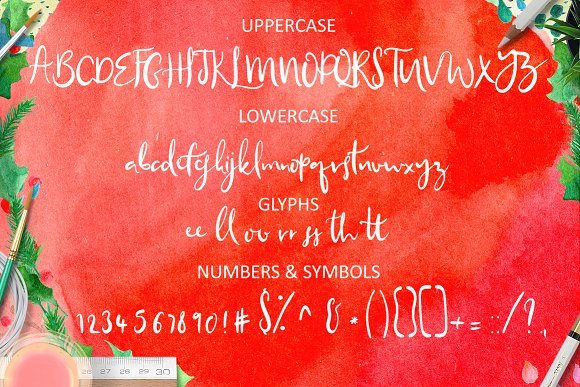
The Perfect Match for Your Creative Vision
Have you ever stared at a blank canvas, feeling the weight of an idea yet to be born? You’ve got a vision, but the right tools to bring it to life seem elusive. That’s where the Ballon Romance Font comes in – a sweet and friendly font that can breathe life into your designs. Its natural and unique style makes it incredibly fitting to a large pool of designs, limited only by your imagination.
As a designer, you understand the importance of finding the perfect font to convey your message. The Ballon Romance Font is more than just a typography choice – it’s a key to unlocking the emotional connection between your audience and your work. With its versatility and charm, this font is sure to become a valuable addition to your design arsenal.
Ballon Romance Font Key Features
- Unique Characteristics: Features elegant, cursive script with swashes and flourishes, making it ideal for romantic and wedding invitations, greeting cards, and other special occasions.
- Kerning and Ligatures: Includes advanced kerning and ligature pairs for improved readability and aesthetic appeal.
Designer Review: Ballon Romance Font
Overall, I’m impressed with the whimsical and dreamy vibe of the Ballon Romance Font. ✨ It’s perfect for adding a touch of romance and elegance to your design projects. The font’s unique combination of curves and flourishes creates a sense of softness and playfulness that’s hard to resist.
The Ballon Romance Font is particularly well-suited for:
- Valentine’s Day and anniversary-themed designs
- Children’s book illustrations and educational materials
- Magazine and newspaper articles with a romantic or lifestyle focus
However, I do have a few concerns: ⚠️ The font can be quite busy and overwhelming, especially at larger sizes. Additionally, some of the letterforms can be tricky to read, particularly in certain font sizes or line heights.
Despite these limitations, I think the Ballon Romance Font is a great choice for designers looking to add a touch of whimsy and romance to their projects. With some careful consideration of font sizes and line heights, this font can add a lot of visual interest and personality to your designs.
The Balloon Romance Font is ideal for creating whimsical and playful designs, such as:
- Wedding invitations and decorations
- Food and drink menus
- Advertising and promotional materials
Remember to experiment with different font sizes, colors, and combinations to get the most out of the Balloon Romance Font.